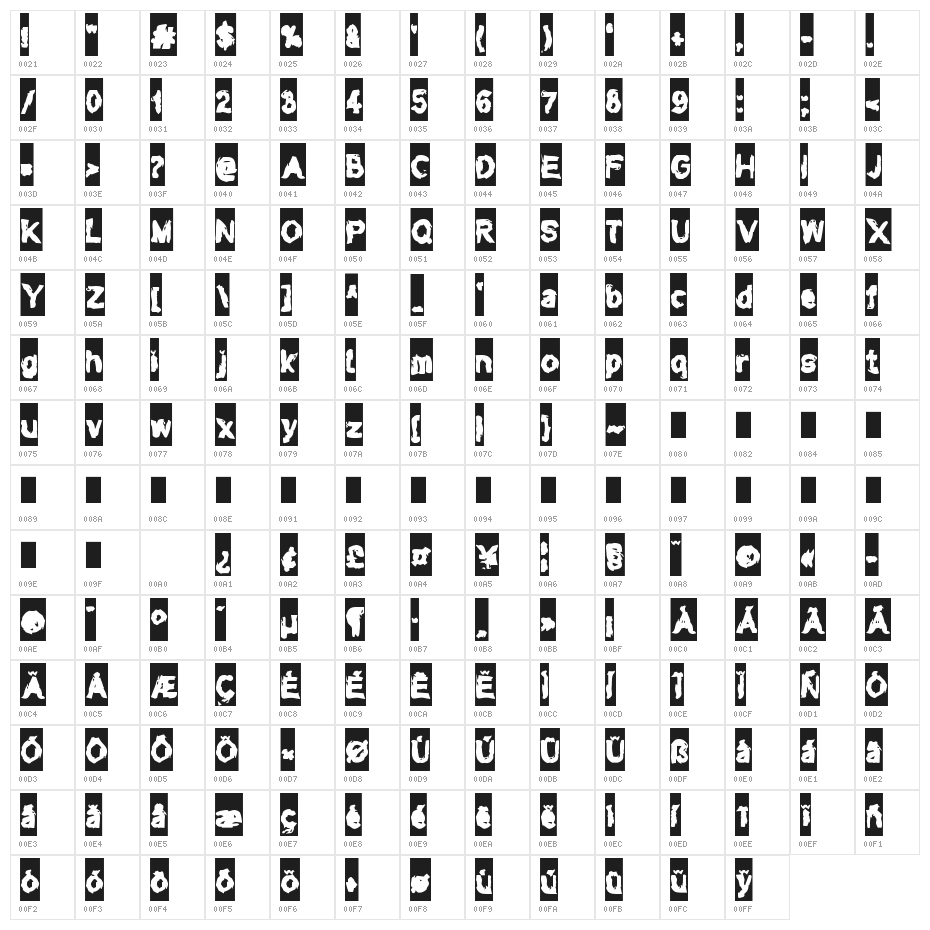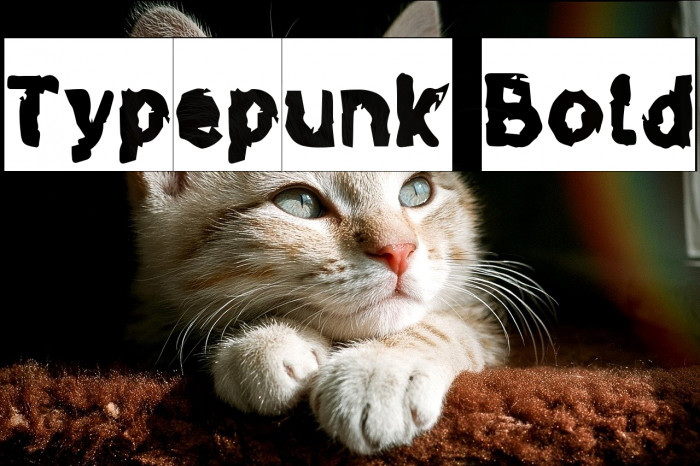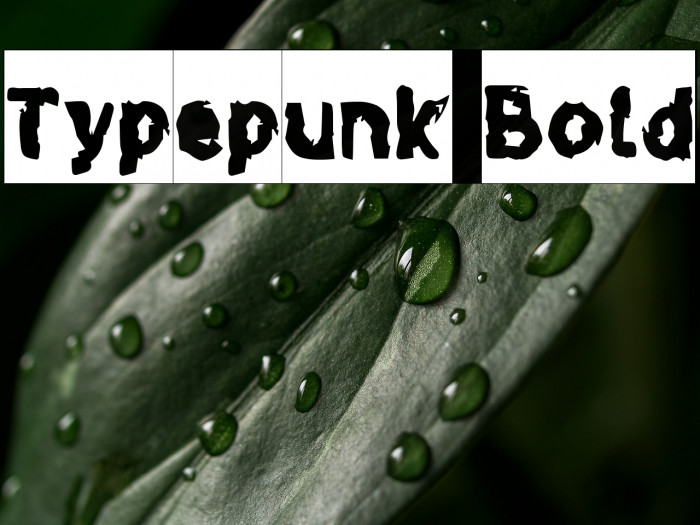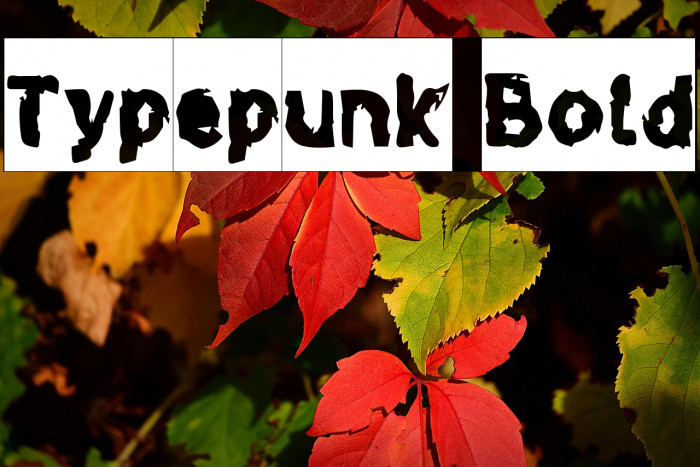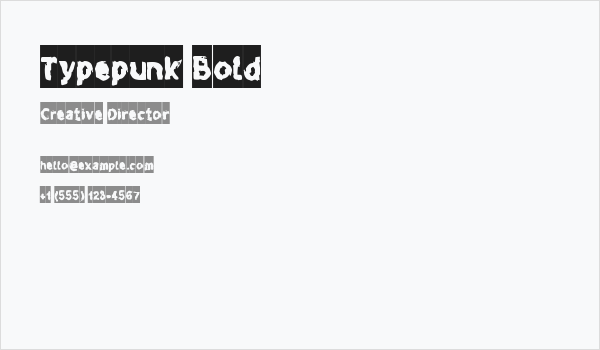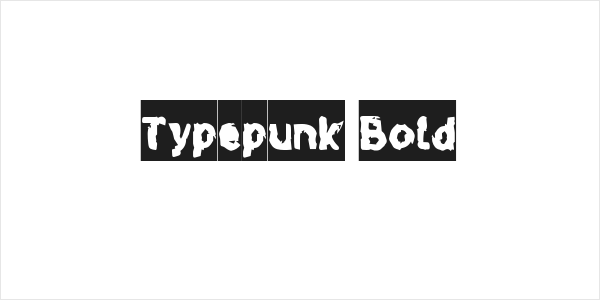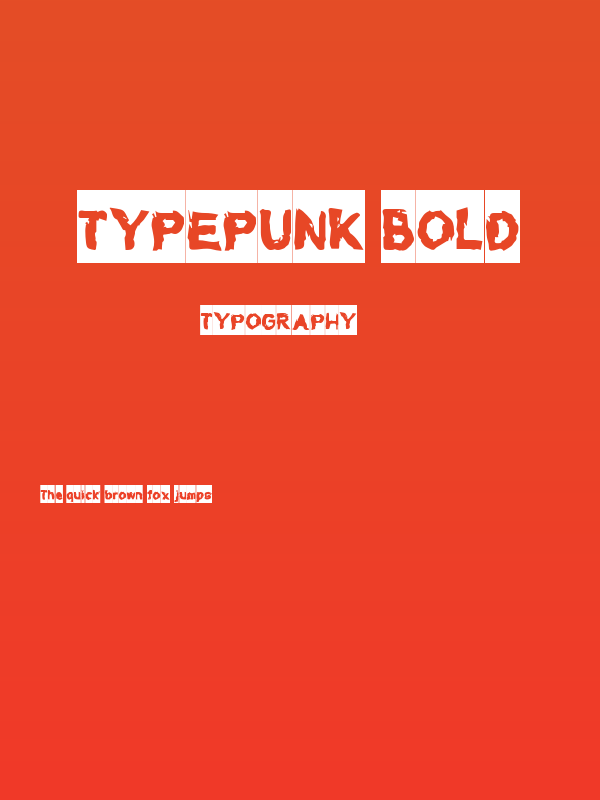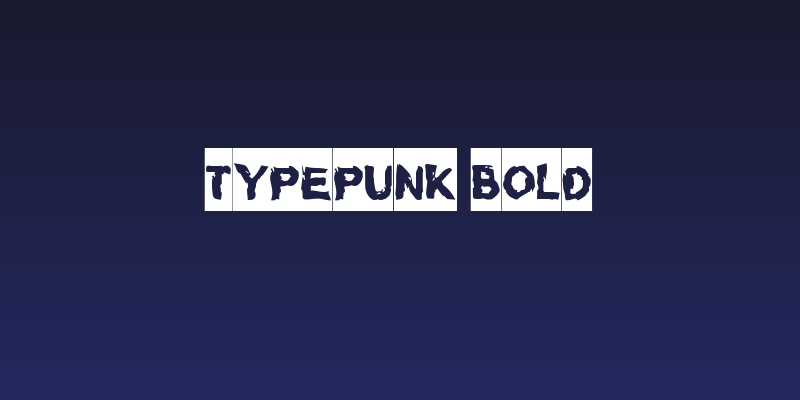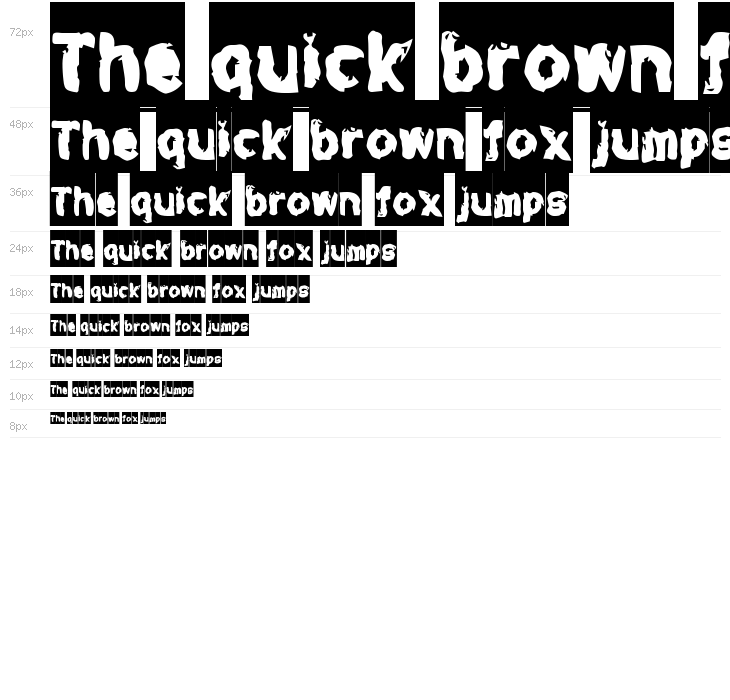
Typepunk Bold Font
Typepunk Bold Description
This font features a bold and rugged design with a distressed, grunge-like appearance. The characters are heavily stylized, with irregular edges and a rough texture that gives them a dynamic and edgy look. The uppercase and lowercase letters maintain a consistent style, while the numbers and special characters are equally bold and impactful. This font is ideal for projects that require a strong, rebellious aesthetic, such as music album covers, posters, or urban-themed designs.
| Proposed Projects | Ideal for music album covers, posters, urban-themed designs, and any project requiring a strong, rebellious aesthetic. |